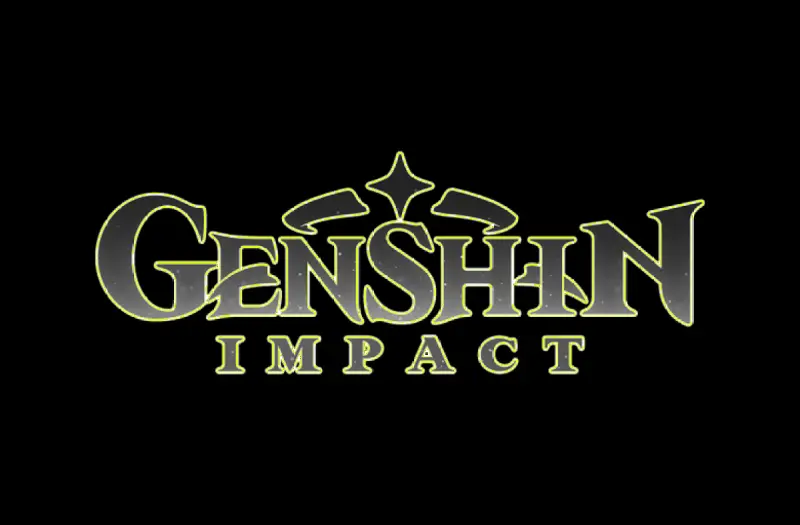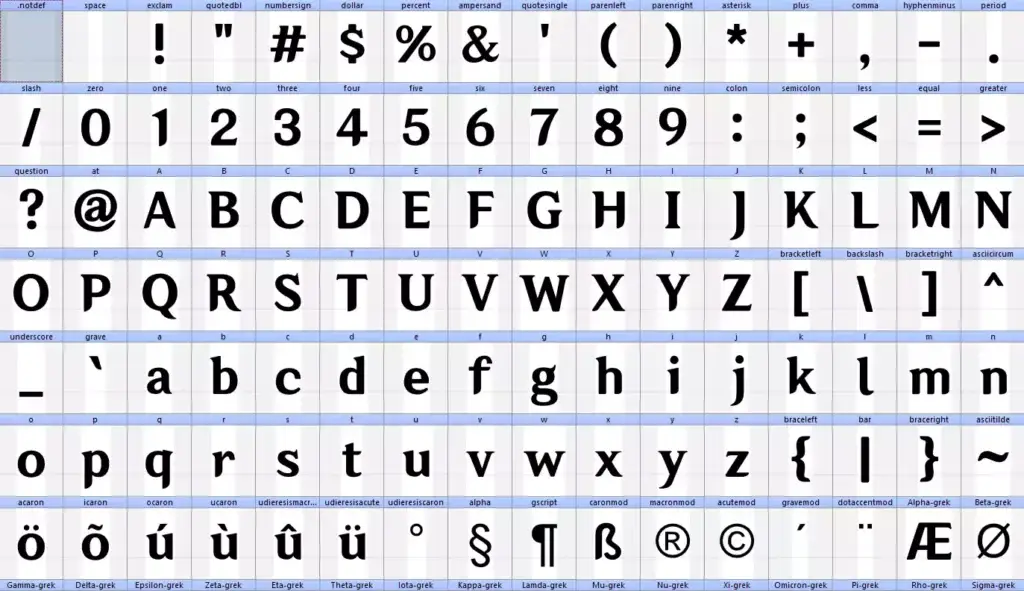
What font does Genshin Impact use?
Genshin Impact uses a proprietary display typeface that is based on Hanyi WenHei, a Chinese font developed by Hanyi Fonts. The in-game font has been modified by miHoYo to include Japanese-style display of Chinese characters, fullwidth interpuncts, and other changes.
The font also contains proprietary glyphs designed by miHoYo or contracted by them. Additionally, the game uses separate Latin and Cyrillic fonts that may have been designed or contracted by miHoYo. The font also includes Korean characters that are not natively supported by the original font, but most of them are from Nanum Gothic Extrabold.
What is the usage?
The Genshin Impact font is primarily used to display text within the game, such as character names, dialogue, item descriptions, and menu options. It is also used in official media related to the game, such as promotional images and videos, the game’s website, and social media posts.
The font’s bold and rounded design is well-suited for titles and headings, making it easy to read and visually striking. The font is used consistently throughout the game and official media, helping to create a cohesive and immersive experience for players.
About Genshin Impact Game Logo
The Genshin Impact game logo features the game’s title in a stylized font, with the word “Genshin” written in bold, white capital letters and the word “Impact” written in bold, orange lowercase letters. The two words are separated by a small orange icon that looks like a stylized “I” with a tail, which is intended to represent the “Impact” of the title.
The logo is simple and minimalist, with a modern and clean design that is easy to read and recognize. The orange and white color scheme gives the logo a bright and vibrant look that is reflective of the game’s fantasy setting and action-packed gameplay. The logo is primarily used in official media such as the game’s website, social media posts, and promotional materials.